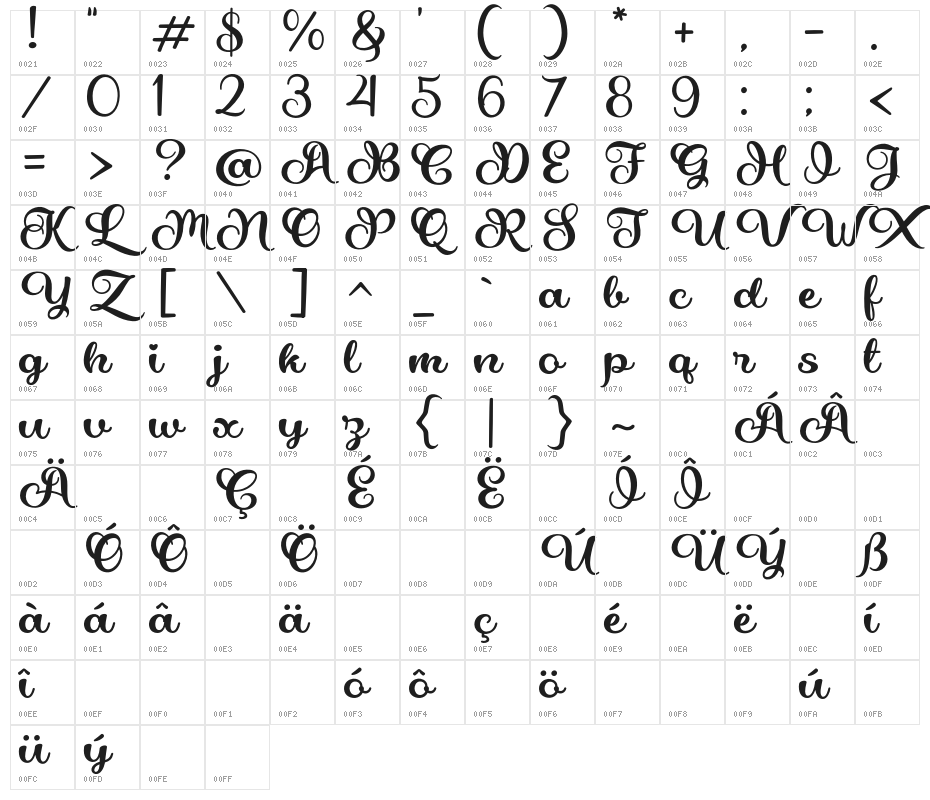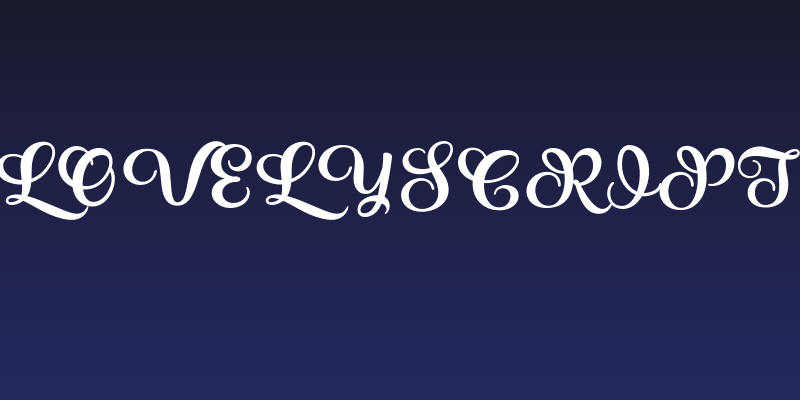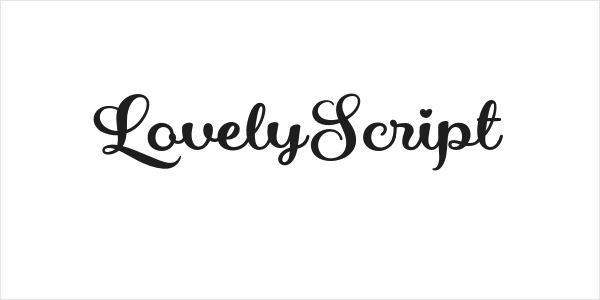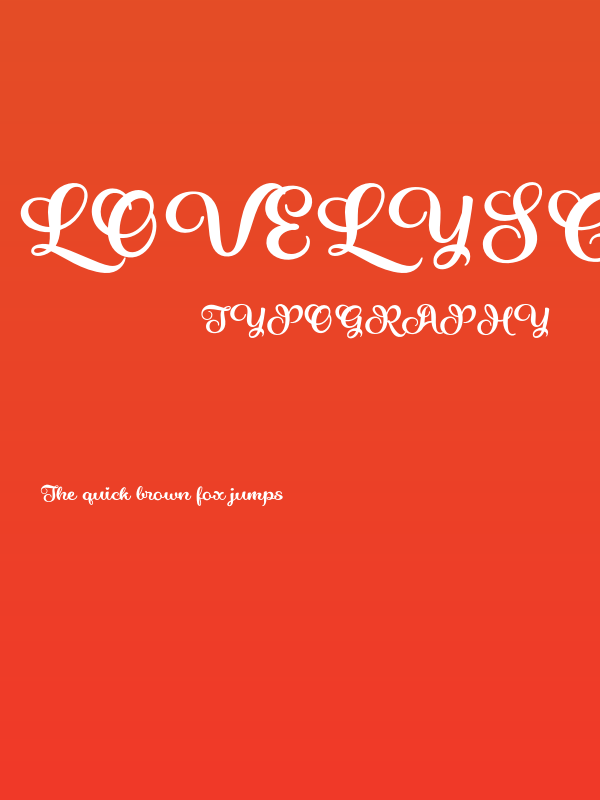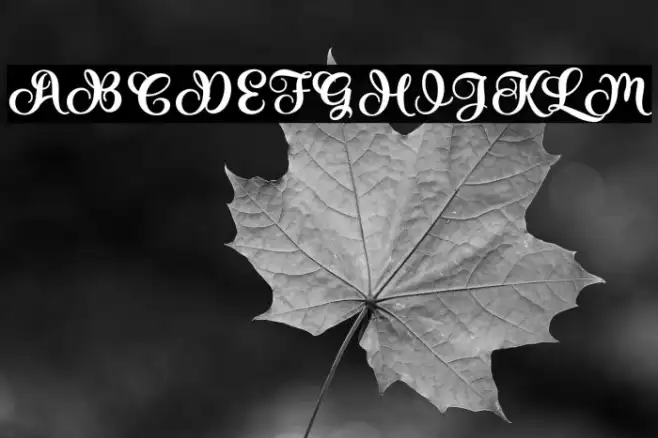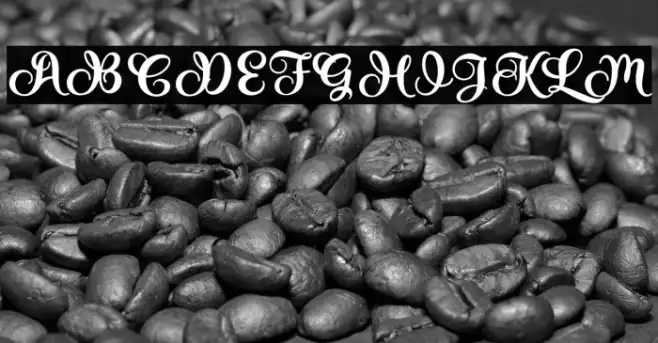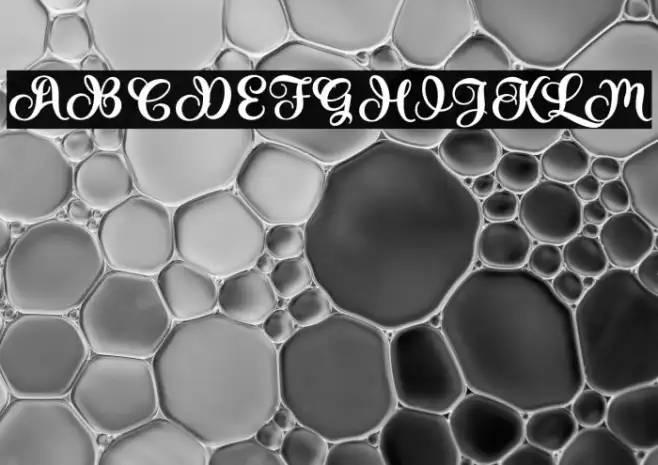
LovelyScript Font
LovelyScript Description
This font features a playful and elegant script style, characterized by its flowing and interconnected letterforms. The uppercase letters exhibit a whimsical flair with loops and swirls, while the lowercase letters maintain a smooth and consistent flow. The numerals are rounded and harmonious, complementing the overall script aesthetic. Special characters are thoughtfully designed to match the font's playful nature, making it suitable for creative and decorative purposes. Its bold strokes and moderate contrast give it a strong presence, ideal for making a statement.
| Proposed Projects | Ideal for wedding invitations, greeting cards, branding, and decorative signage. |